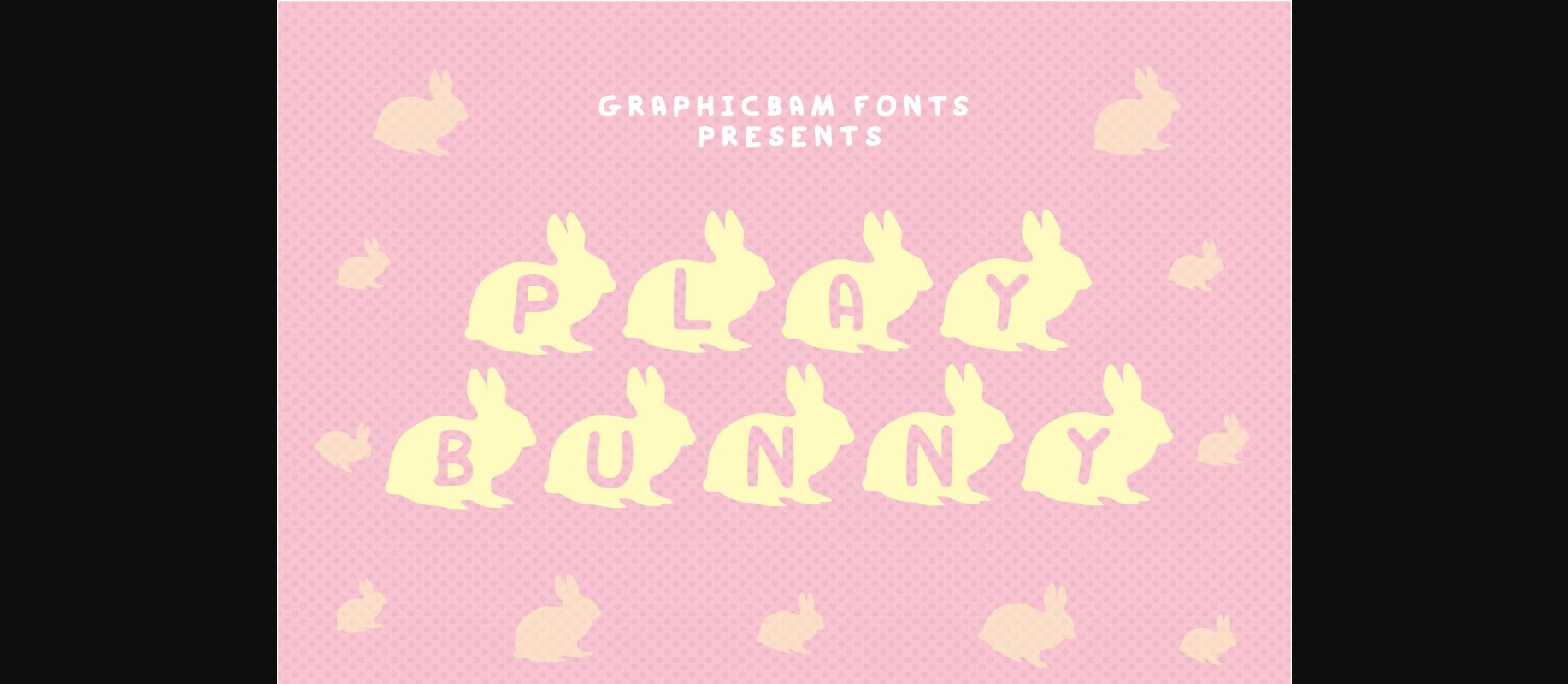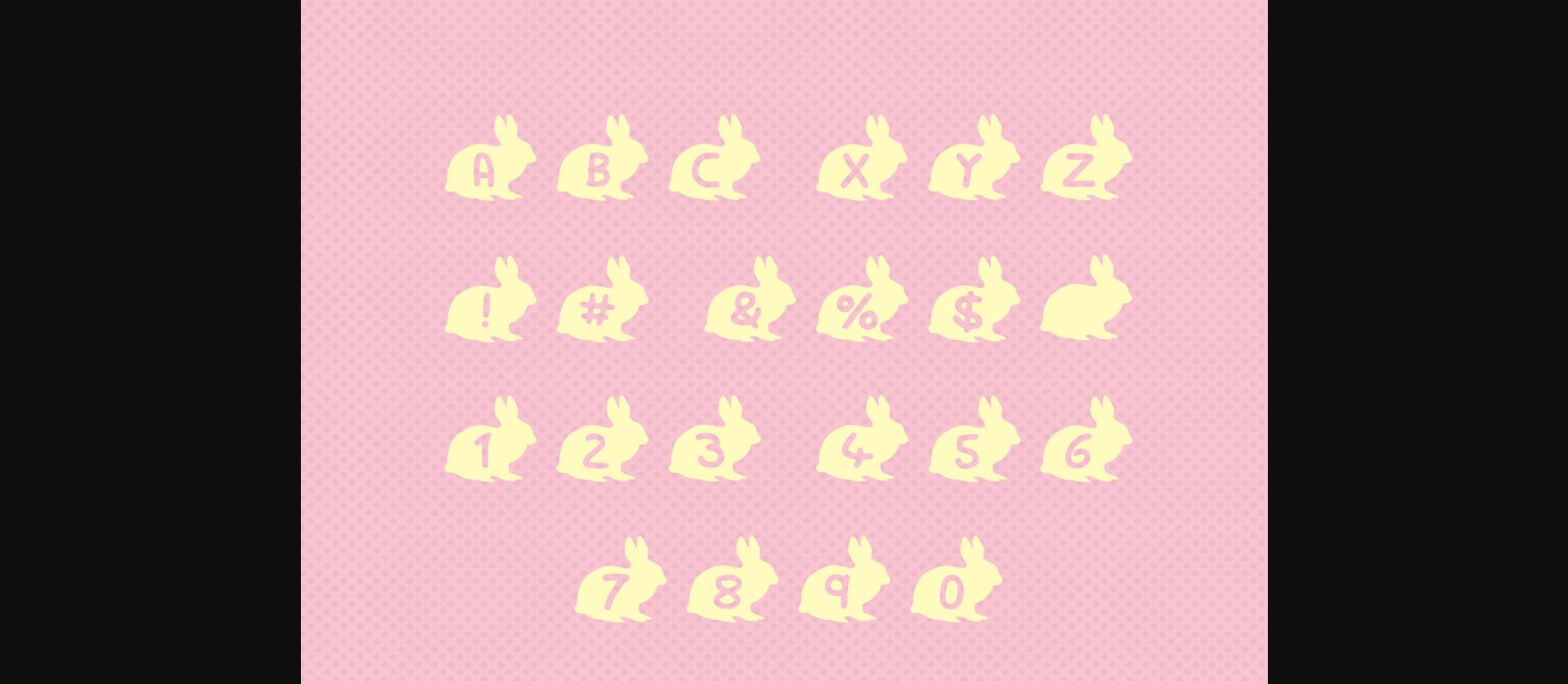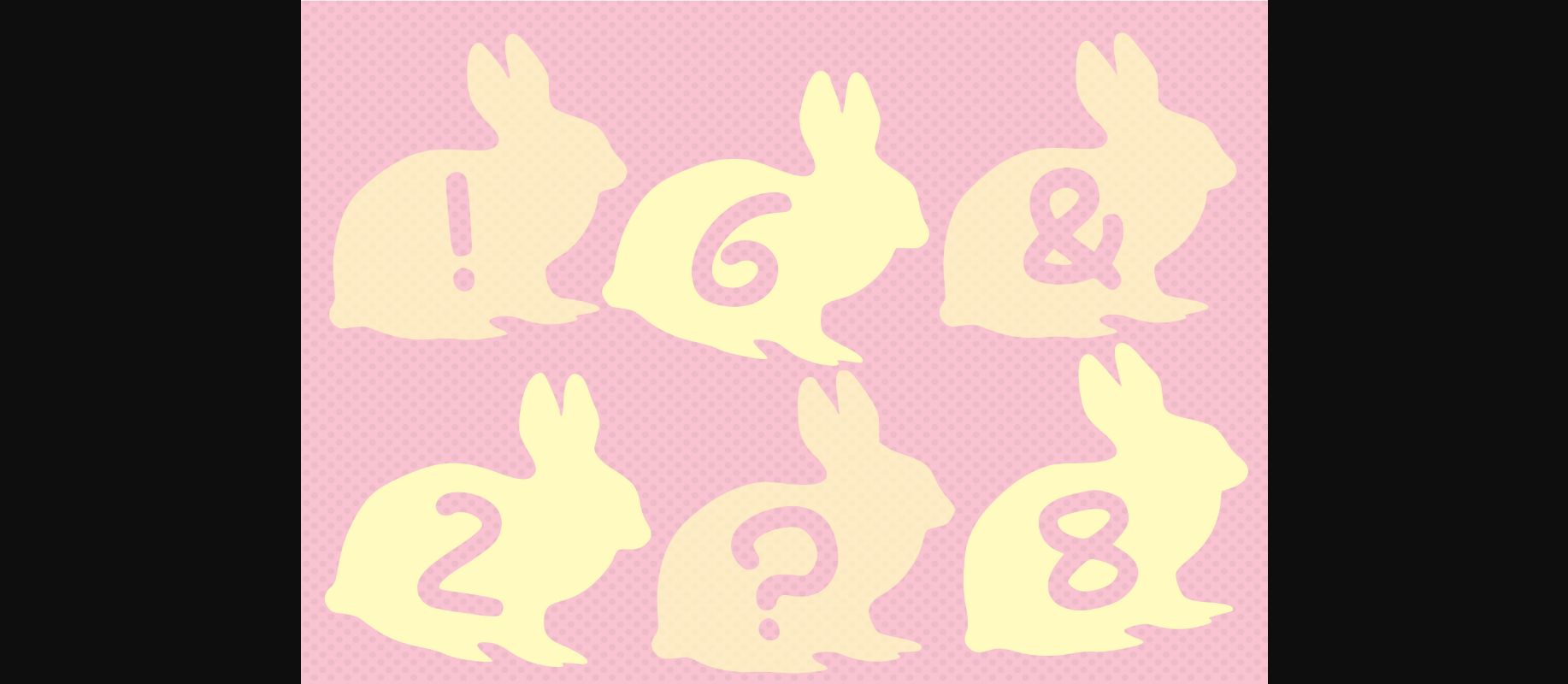
Play Book Font
About Play Book Font
Play Book is a cool looking and interesting decorative font, featuring a bunny on each character. No matter the topic, this font will be an incredible asset to your fonts’ library, as it has the potential to elevate any creation.